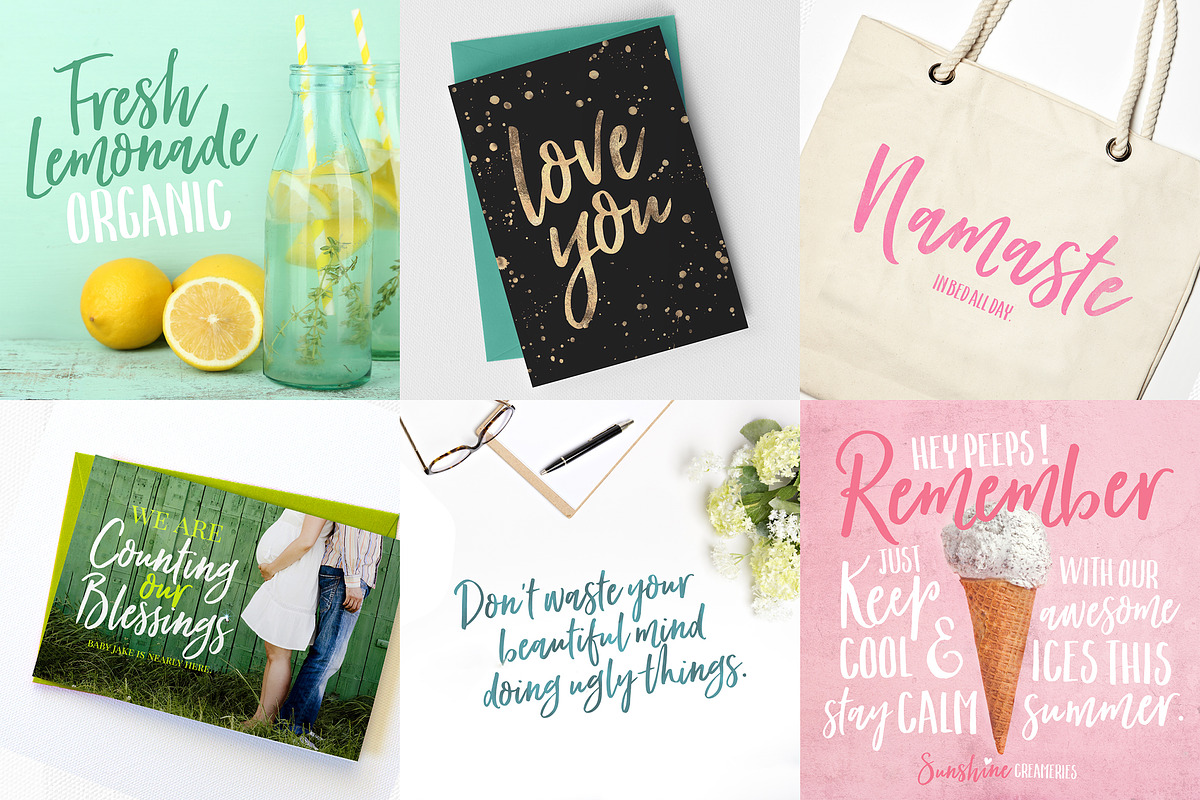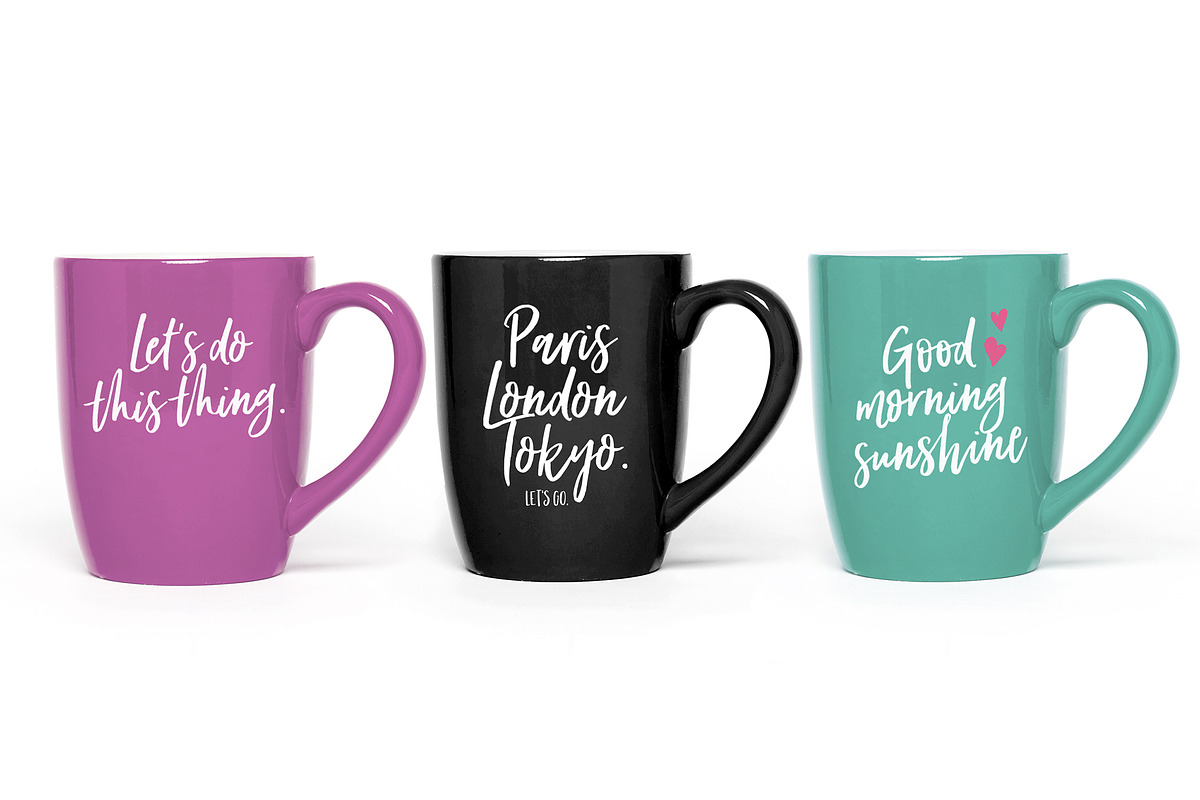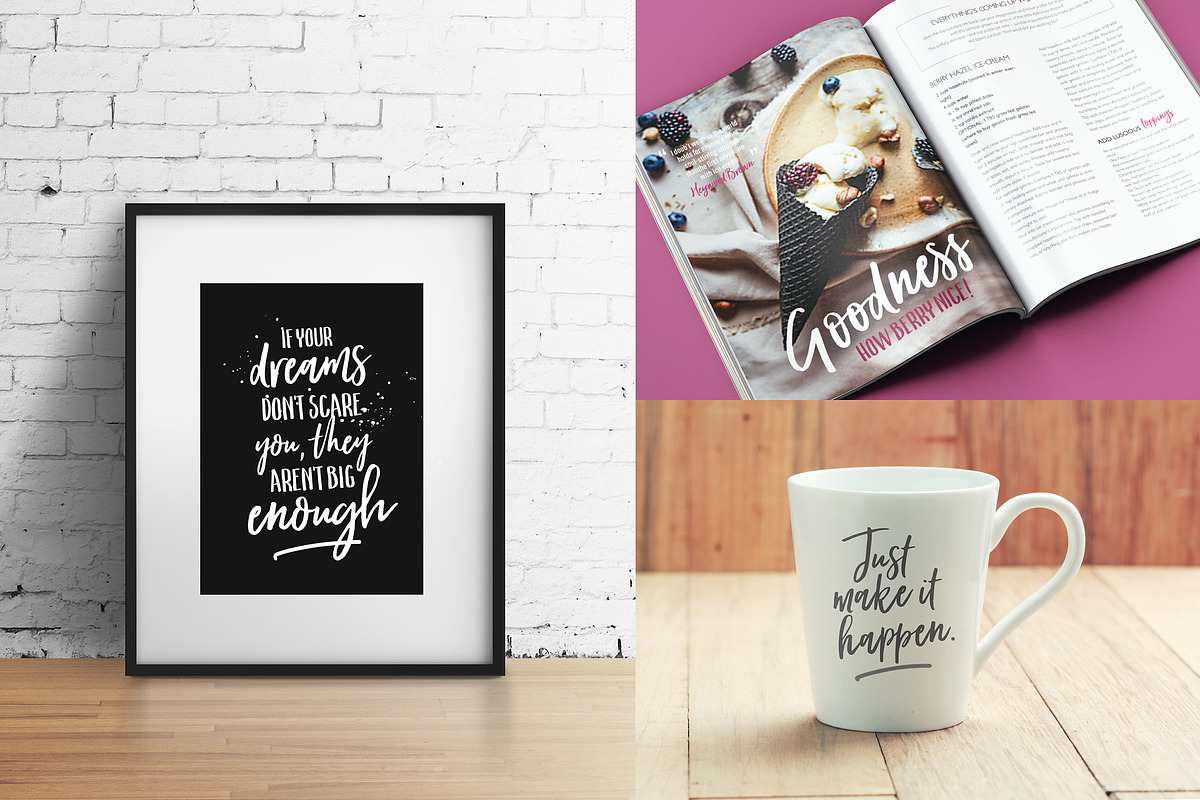
Forever Soulmates Font Duo
Forever Soulmates Font Duo by Nicky Laatz is a font selected for branding, posters, packaging, typography.
- ♥ OODLES OF ALTERNATE LETTERS Forever Soulmates is different in that each uppercase letter and each lowercase letter has an alternate versio
- ♥ LIGATURES Put a "c" and and "h" together, and you get a magically natural-looking, hand-scripted "ch" - thats a ligature :) Forever Soulma
- Included is a "Swish" font, which includes a couple of bonus splatters and swishes to help you add some oomph to your designs :) WHAT YOU GE
Why Forever Soulmates Font Duo is worth a look
Forever Soulmates Font Duo by Nicky Laatz fits naturally into Branding, posters, packaging, typography.